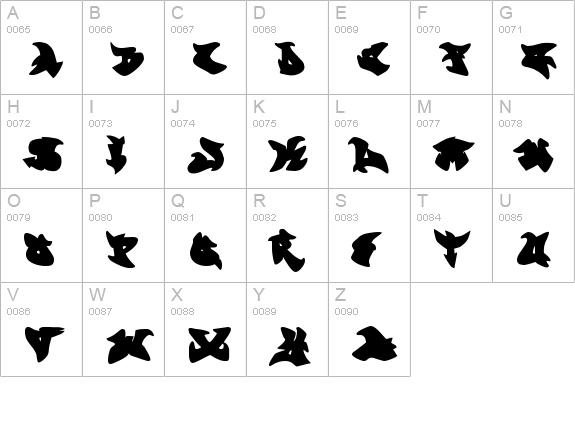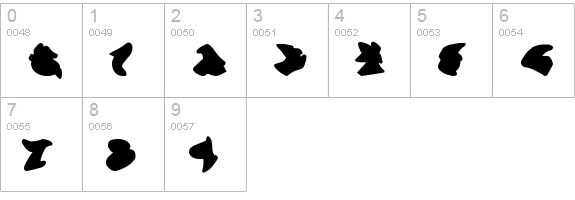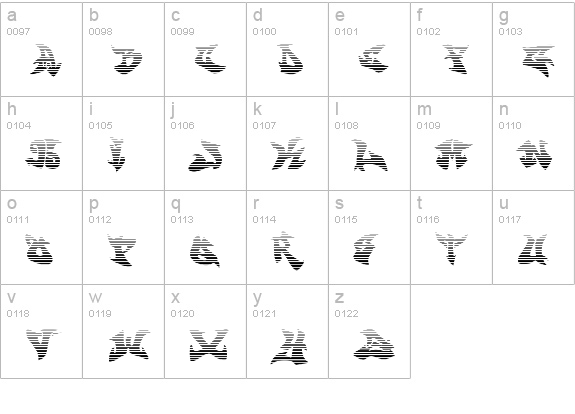
graffonti.gradient.fill Font Details
Graffonti Gradient Fill is a dynamic and eye-catching font that exudes urban flair and creativity. With its bold strokes and gradient effects, this font is perfect for making a statement in your design projects. Each letter is uniquely crafted with a graffiti-inspired aesthetic, adding a contemporary edge to any project. What makes Graffonti Gradient Fill even more appealing is that it is completely free to download at FontsMarket.com. Whether you're working on posters, flyers, or digital designs, this font will help you stand out and make a lasting impression. Embrace the urban vibe and unleash your creativity with Graffonti Gradient Fill.